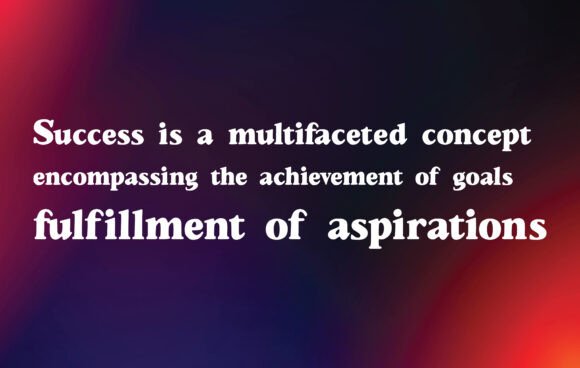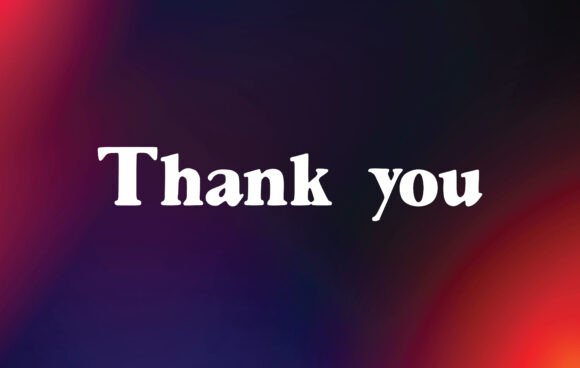
Discover the Elegance of Adler Font: Elevate Your Designs to New Heights
In the world of typography, fonts play a crucial role in bringing creative ideas to life. Among the numerous fonts available, Adler Font stands out for its unique charm and versatility. This lovely and beautiful font has the potential to take your creative projects to the highest level, making it an ideal choice for designers and crafters looking to make a statement.
The Characteristics of Adler Font
Adler Font boasts a distinctive style that sets it apart from other fonts. Its elegant and refined appearance makes it perfect for creating eye-catching logos, branding materials, and quotes. The font’s design is characterized by its clean lines, beautiful curves, and a perfect balance of boldness and subtlety.
Why Choose Adler Font?
There are several reasons why Adler Font should be your go-to choice for your design projects:
- Versatility: Adler Font can be used for a wide range of projects, from logos and branding to quotes and social media graphics.
- Elegance: The font’s elegant design adds a touch of sophistication to any project, making it perfect for high-end brands and luxury products.
- Readability: Adler Font is highly readable, even at small sizes, making it ideal for use in body text and captions.
- Uniqueness: Adler Font has a unique style that sets it apart from other fonts, ensuring your designs stand out from the crowd.
Using Adler Font for Logos and Branding
Adler Font is an excellent choice for creating logos and branding materials. Its elegant design and versatility make it perfect for:
- Wordmarks: Use Adler Font to create simple yet effective wordmarks that showcase your brand’s name.
- Logotypes: Combine Adler Font with icons or graphics to create unique logotypes that represent your brand.
- Taglines: Use Adler Font to create eye-catching taglines that complement your logo and enhance your brand’s message.
Creating Eye-Catching Quotes with Adler Font
Adler Font is also perfect for creating eye-catching quotes that inspire and motivate. Its elegant design and readability make it ideal for:
- Social media graphics: Use Adler Font to create stunning social media graphics that showcase your favorite quotes.
- Planners and journals: Add a touch of elegance to your planners and journals with Adler Font.
- Posters and prints: Create beautiful posters and prints that feature your favorite quotes in Adler Font.
Tips for Using Adler Font Effectively
To get the most out of Adler Font, follow these tips:
- Experiment with sizes: Adler Font looks great at various sizes, so experiment to find the perfect size for your project.
- Pair with other fonts: Combine Adler Font with other fonts to create a unique and visually appealing design.
- Use it consistently: Use Adler Font consistently across your designs to create a cohesive brand identity.
Adler Font is a beautiful and versatile font that has the potential to elevate your creative projects to new heights. Its elegant design, readability, and uniqueness make it perfect for creating eye-catching logos, branding materials, and quotes. Whether you’re a designer or crafter, Adler Font is an excellent choice for anyone looking to add a touch of sophistication to their designs.